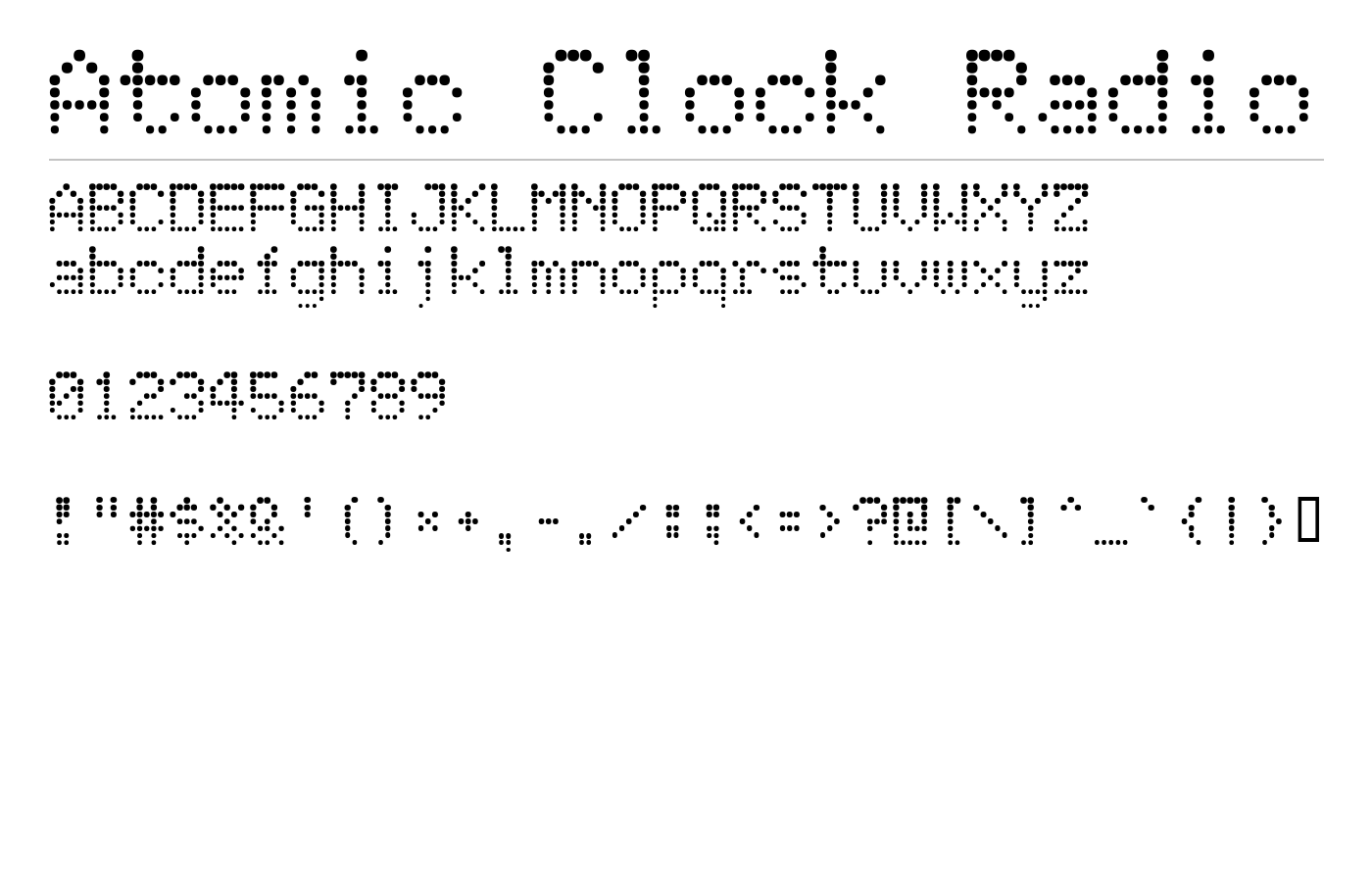
Atomic Clock Radio is a distinctive, monospaced sans serif font that mimics the look of digital clock or radio displays with its dotted, pixel-like characters. Its consistent weight, geometric structure, and open spacing give it a technical and retro-futuristic vibe, making it ideal for digital-themed designs, tech branding, and unique display headlines. This font works best where a nostalgic yet modern electronic feel is desired, such as in posters, logos, or interfaces inspired by vintage electronics.
Atomic Clock Radio Font
About Atomic Clock Radio Font